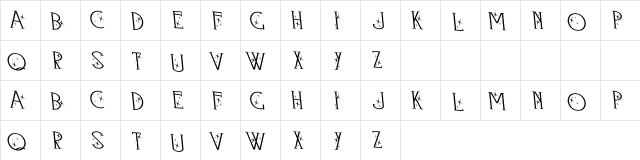
Retroland Regular
Design Context for Retroland Typeface
Retroland wears its vintage influences proudly, with letterforms that recall mid-century signage, classic packaging, and nostalgia-driven design.
Font Pairing: Combine Retroland with a simple slab or neutral sans — period-accurate companions reinforce the vintage feel without competing for attention.
Pro Tip: Lean into Retroland's period character by pairing it with aged paper textures, muted colour palettes, and vintage illustration styles.